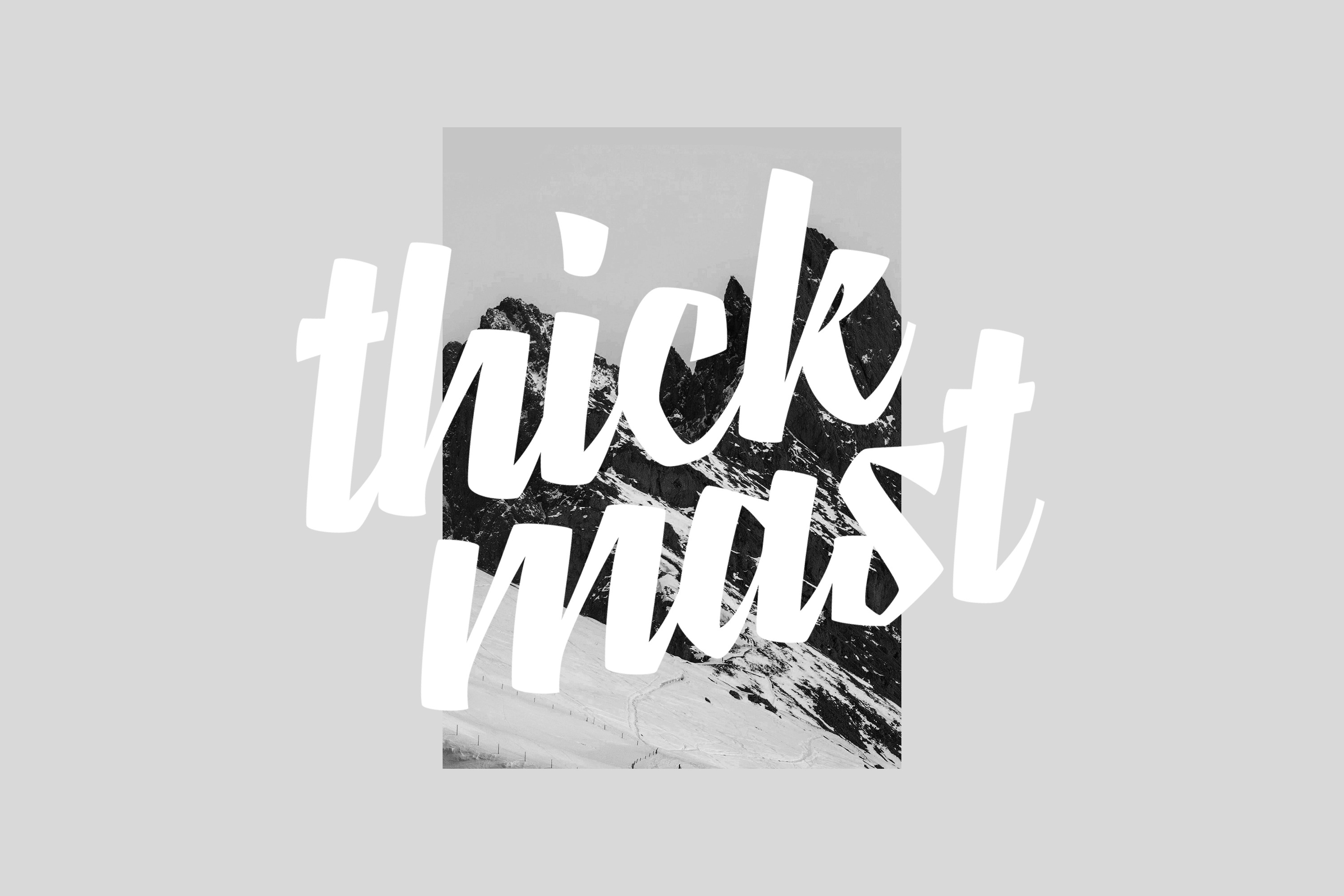
Thickmast Script Font
Thickmast Script is base from flat brush custom pen. We made it with 2 style connection each glyph and 900 more glyphs to make it perfect connection. I also made it more flexible for UPPERCASE pair. Something like double font as CUSTOM SANS and SCRIPT in one font files. We Hope you enjoy our custom ideas. Let me know your comment. This font belongs both the type of Custom and Modern script font. This will be suitable to complete your work.
Thickmast script includes full set of uppercase and lowercase letters, multilingual, symbols, numerals and punctuation. Ofcourse in latin language system support
ATTENTION, Maybe you can't see a connection of the TOP for (r , x and z) by typing in PREVIEW MODE but make sure you use support Opentype Application or CHARACTER MAP to access CONTEXTUAL ALTERNATE to make it auto connect each glyphs. It should be automatically pair when you use support application.
- Pungctuation
- Symbol
- Latin base Multilingual
- Contextual Alternate
- Discretional Ligatures
- Private Use Areas (PUA Encode)
- More than 900 Glyphs to support middle and top connection